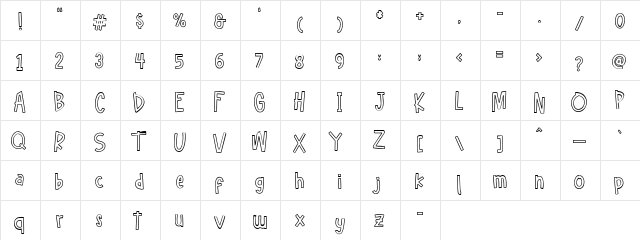
Hellofreeday Outline DEMO Regular
Design Context for Hellofreeday Outline DEMO Typeface
Hellofreeday Outline DEMO is built around its visual character rather than neutral utility — its distinctive forms are designed to make an impression at display sizes.
Font Pairing: Pair with a clean neutral sans-serif for body copy to let Hellofreeday Outline DEMO's character lead without overwhelming the composition.
Pro Tip: Treat Hellofreeday Outline DEMO as the centrepiece of your typographic hierarchy. One strong heading set in a decorative face can carry an entire layout.